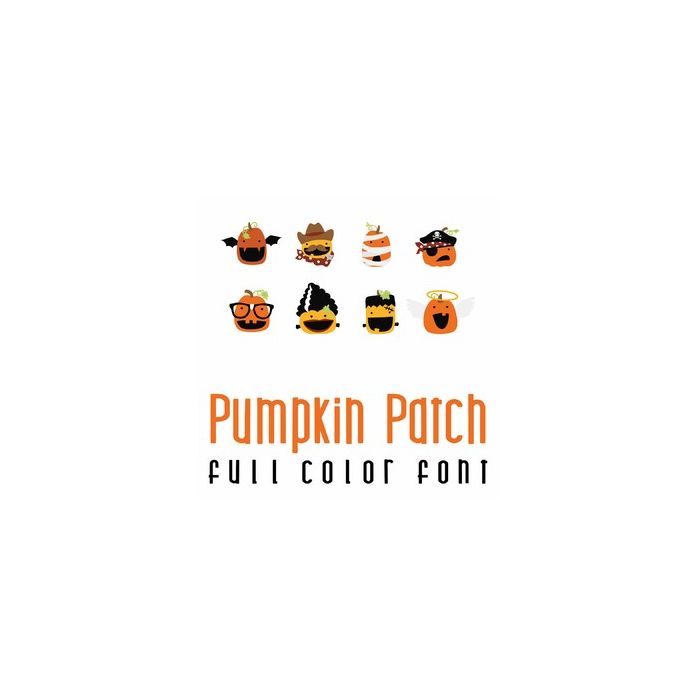
This fun doodlebat font features 26 dressed up jack-o-lanterns and pumpkins. Perfect for Halloween, cards, crafts, gifts, decor, planner stickers, scrap book pages and more!